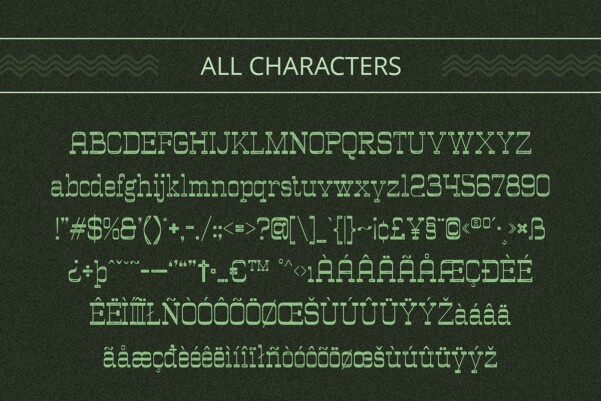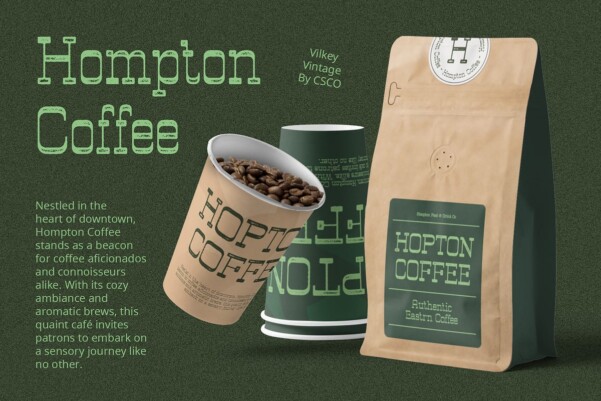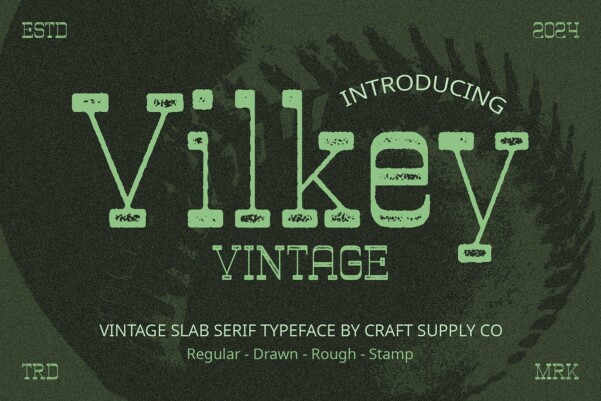
Vilkey Vintage Font
Vilkey Vintage Font: A Retro Revival in Display Typography. Bold Slab Serif Design Vilkey Vintage features a striking slab serif structure that commands attention. Its bold strokes and sturdy letterforms exude confidence, making it an ideal choice for impactful displays.
Reverse Contrast Elegance With its reverse contrast style, This font introduces a unique twist to traditional typography. The thick vertical strokes and thin horizontals create a captivating visual rhythm, adding elegance to any design.
Rough Stamp Drawn Effect Embracing a rough stamp drawn effect, This font channels the nostalgic charm of vintage signage. Each character bears subtle imperfections, adding character and authenticity to the overall aesthetic.
Vintage Appeal for Modern Projects Despite its retro-inspired design, This font remains versatile and relevant for modern applications. Whether used in branding, editorial layouts, or web design, its vintage allure adds a touch of nostalgia and sophistication.
Timeless Tribute This font pays homage to the classic era of typography while offering a fresh perspective for contemporary projects. Its bold slab serif design, reverse contrast elegance, and rough stamp drawn effect combine to create a font that stands the test of time, adding a touch of vintage charm to any design endeavor.